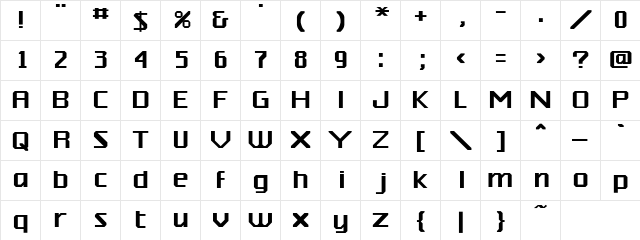
Silicon Regular
Design Context for Silicon Typeface
Silicon takes a measured approach to typography — its balanced proportions and neutral character make it a reliable workhorse for both digital and print work.
Pro Tip: Use Silicon in both headline and body roles to test its range before committing to a single application.